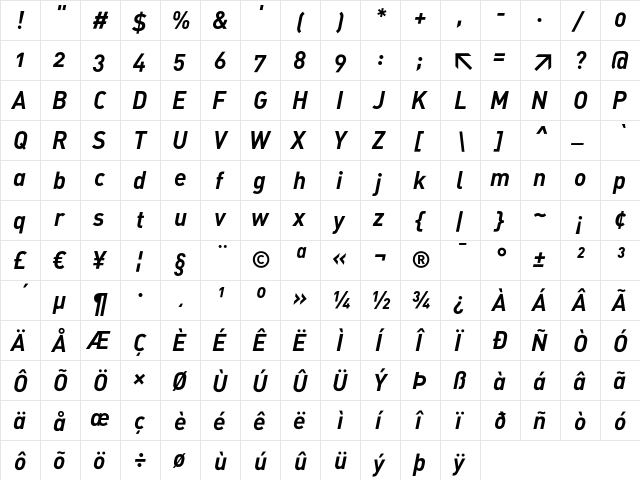
DIN-BoldItalicAlt Regular Font Preview
DIN-BoldItalicAlt Regular
DIN-BoldItalicAlt Regular Font Details
Design Context for DIN-BoldItalicAlt Typeface
DIN-BoldItalicAlt takes a measured approach to typography — its balanced proportions and neutral character make it a reliable workhorse for both digital and print work. The slanted form adds forward momentum and visual energy. Its bold stroke weight gives it real presence on the page.
Pro Tip: Use DIN-BoldItalicAlt for emphasis, pull quotes, and subheadings where its slanted energy can add rhythm to the layout.